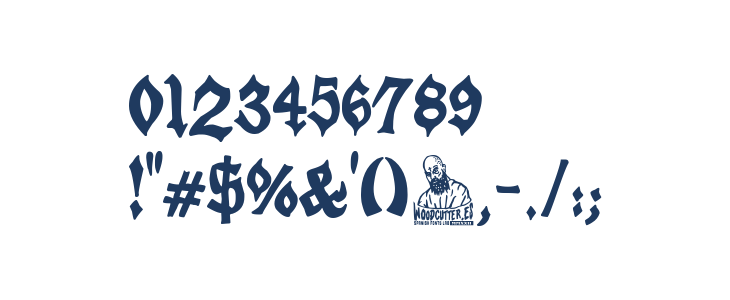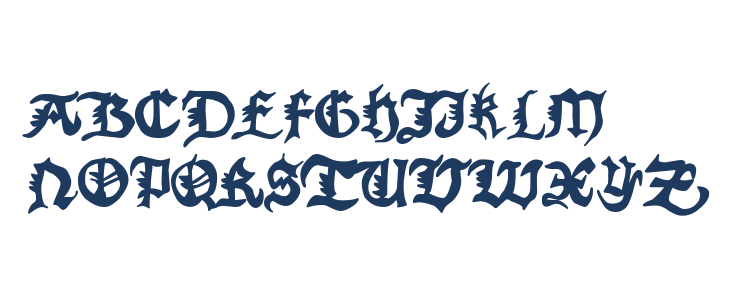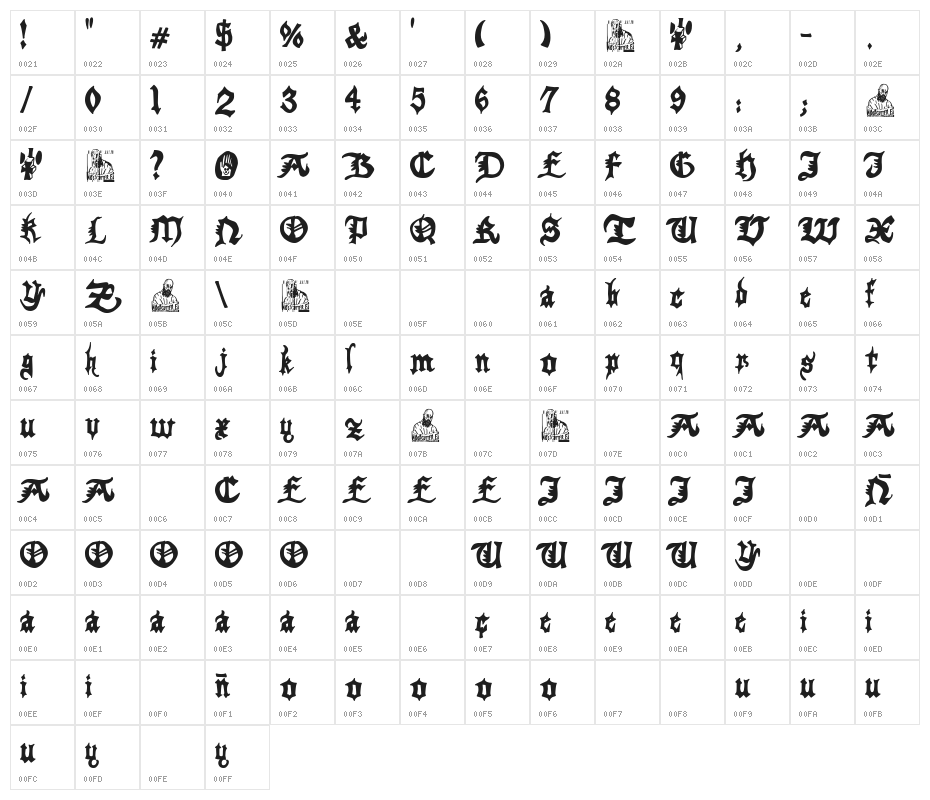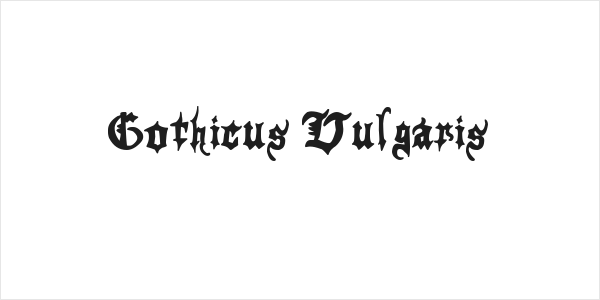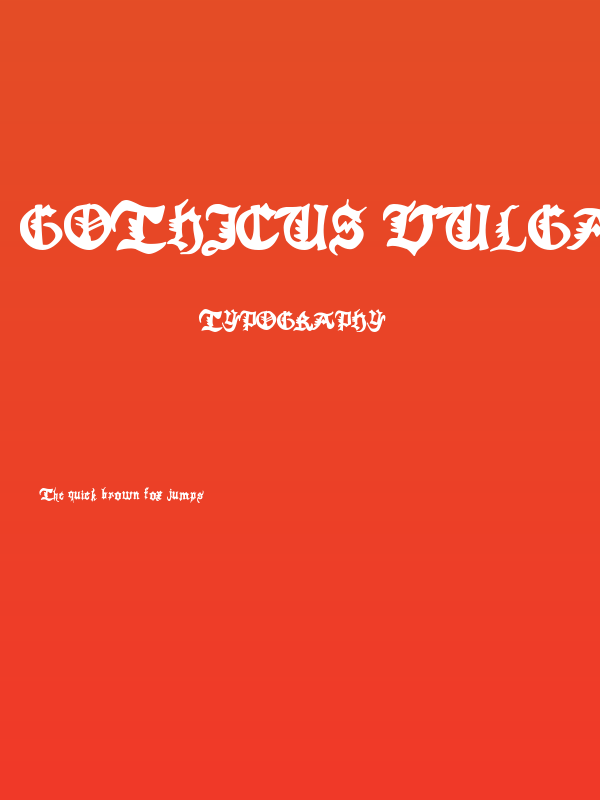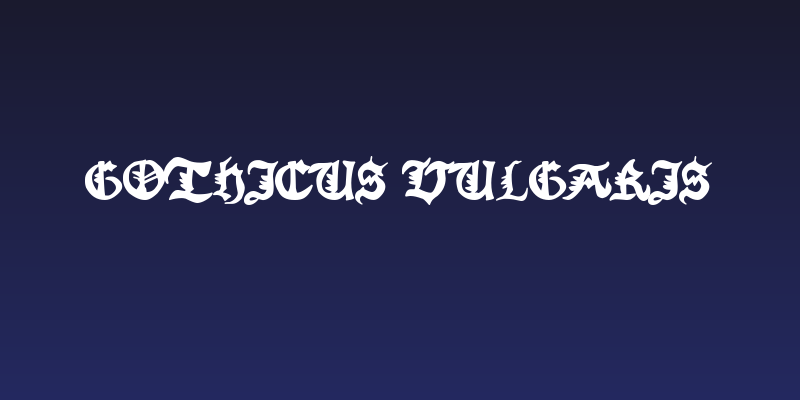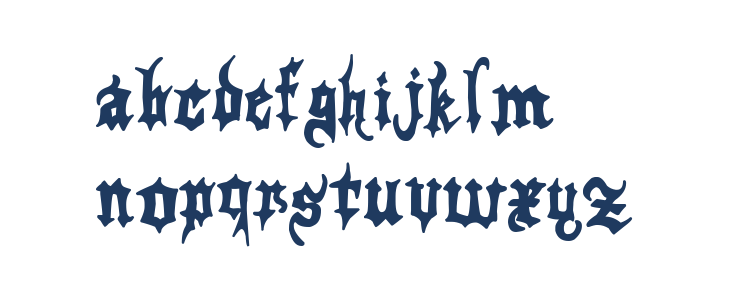
Gothicus Vulgaris Font
Gothicus Vulgaris Description
| Overall Style | Decorative, Gothic, Vintage |
| Use Case | Logos, Headlines, Posters, Themed graphics |
| Proposed Projects | Posters, book covers, tattoos, event invitations, branding for gothic or metal bands, historical or fantasy-themed projects. |